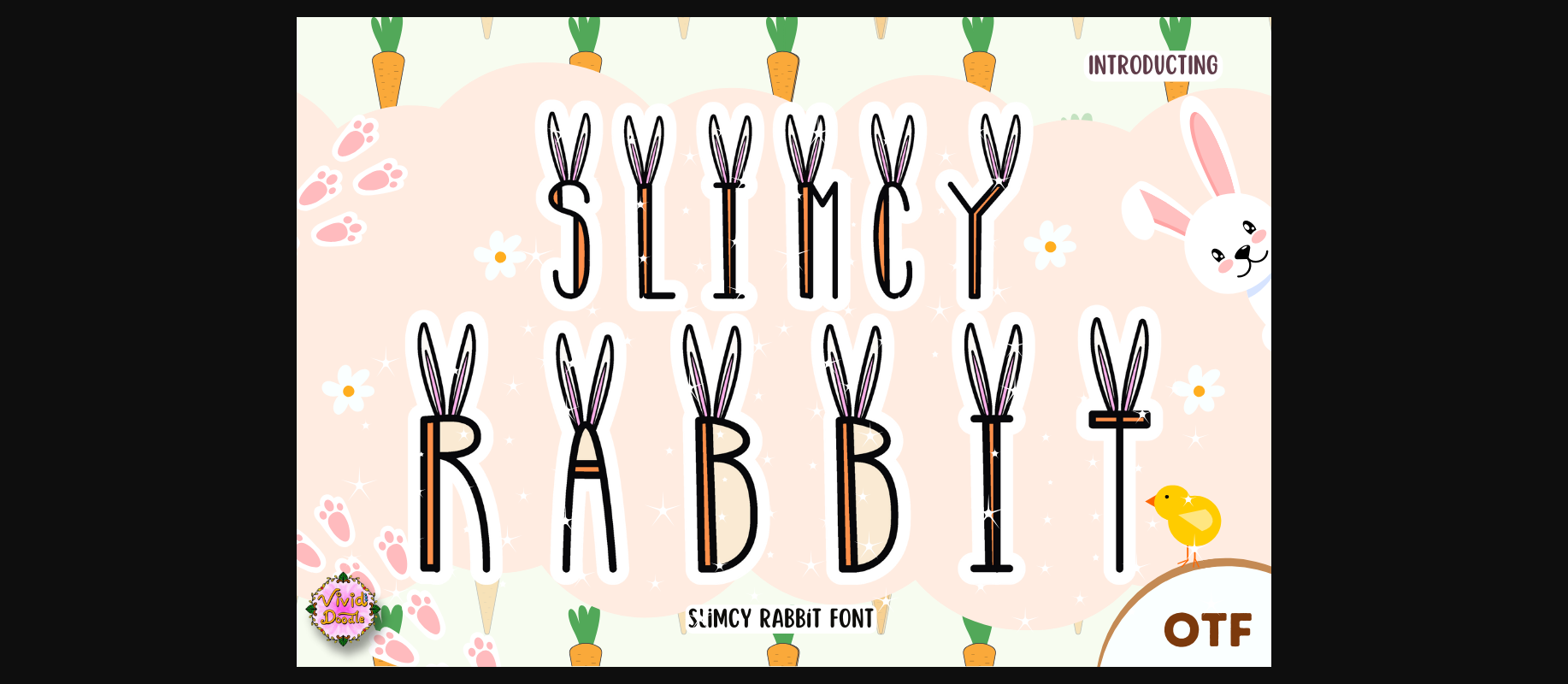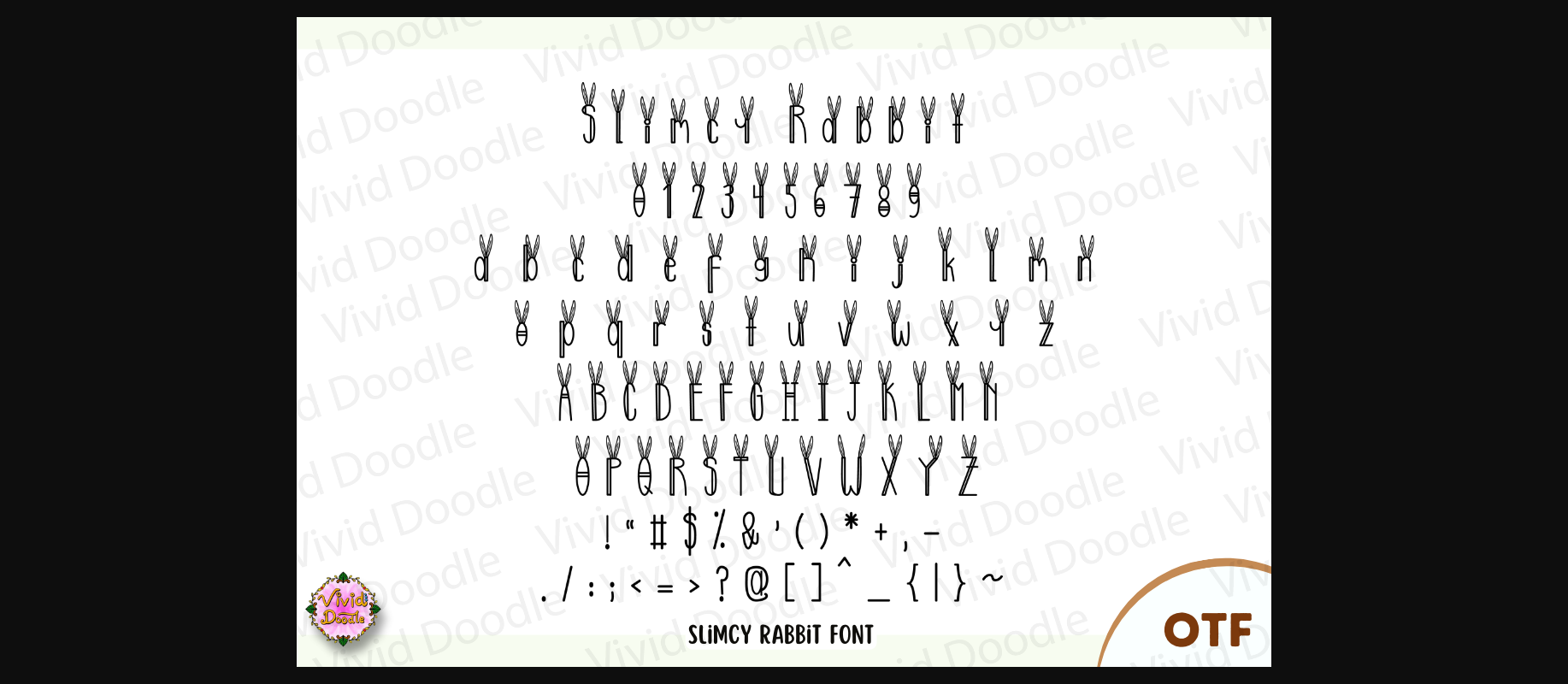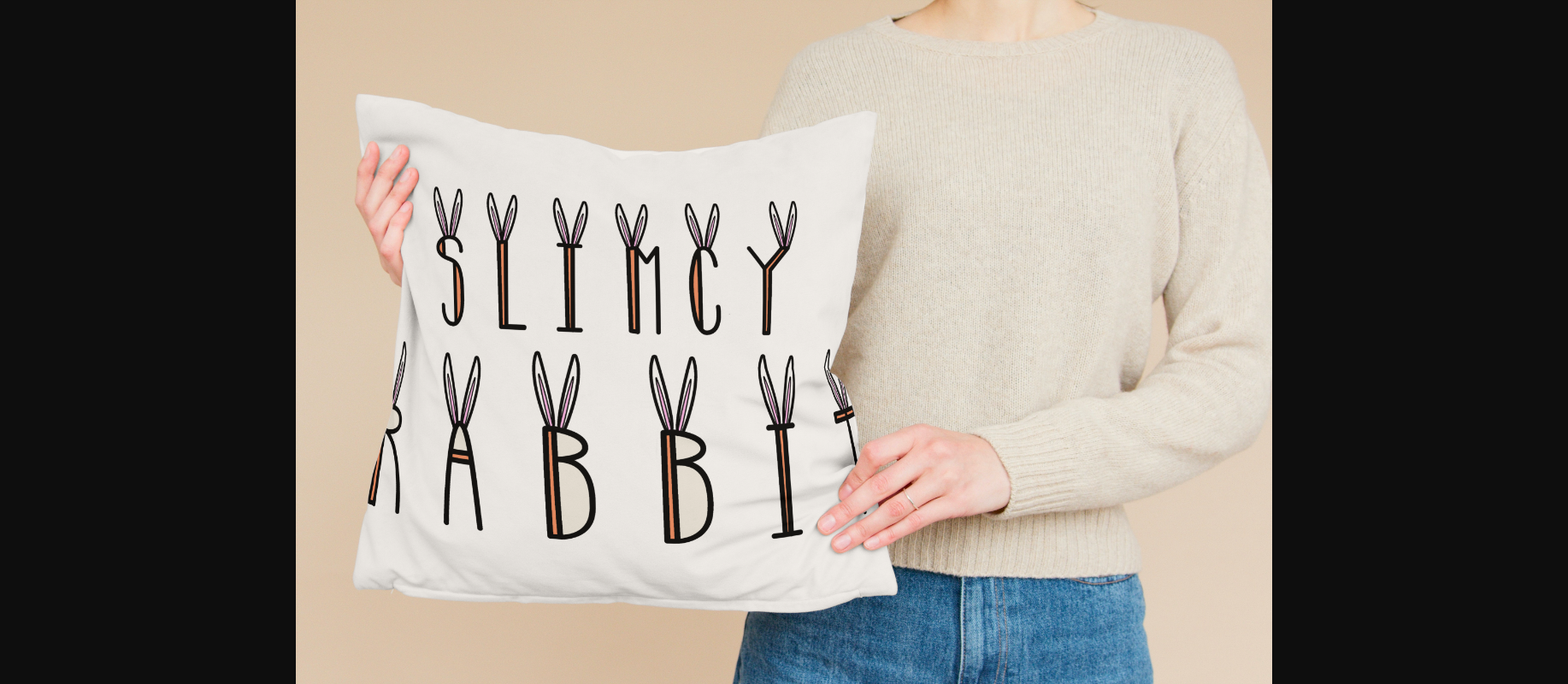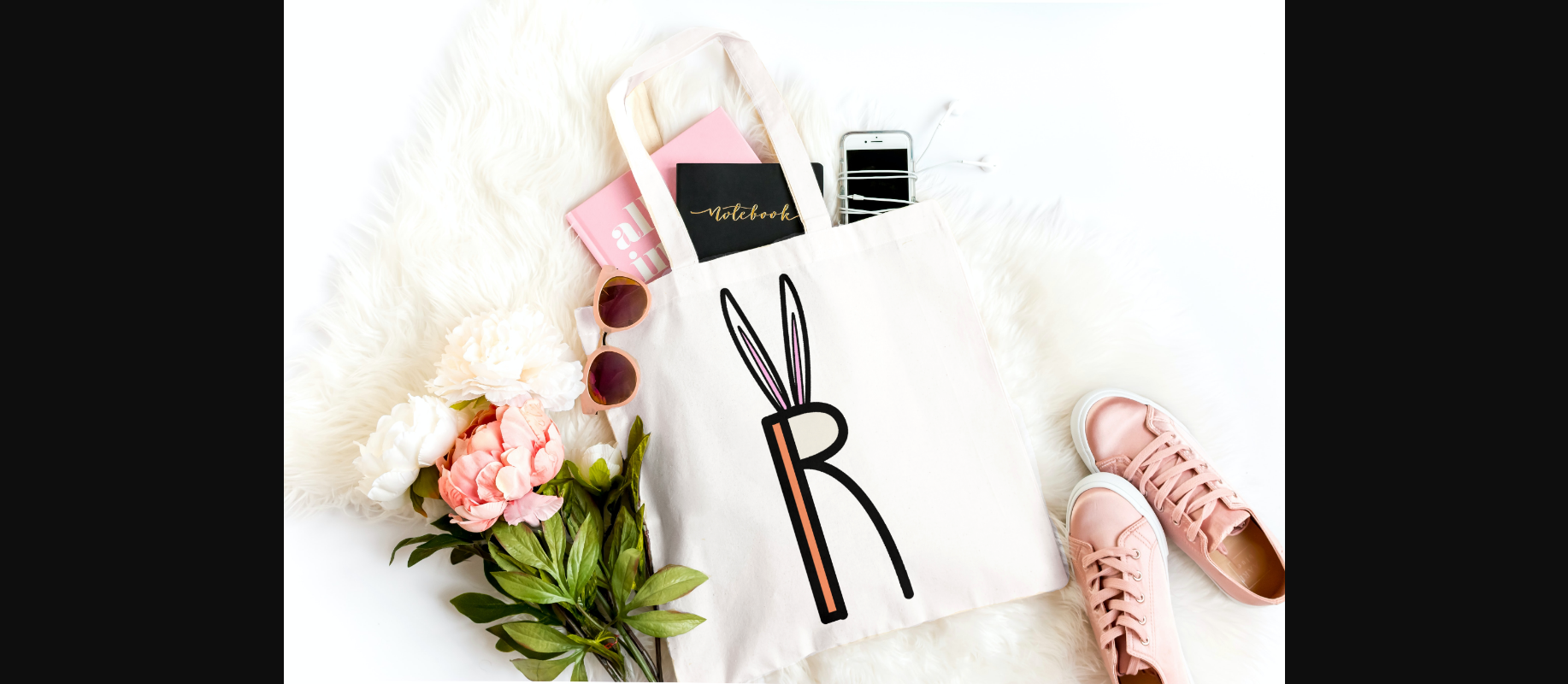
Slimcy Rabbit Font
About Slimcy Rabbit Font
Introducing Slimcy Rabbit font—a charming and whimsical typeface designed to bring joy to Happy Easter Day holidays, fairy themes, and cute rabbit-inspired projects. Each letter exudes the playful essence of a cute rabbit, making it perfect for Easter decorations, T-shirts, bags, crafts, DIY projects, and more. This font seamlessly blends a happy aesthetic with the adorable charm of rabbits, creating a visually delightful and enchanting experience. Elevate your designs with the whimsical allure of Slimcy Rabbit font, turning every project into a celebration of joy and cuteness.